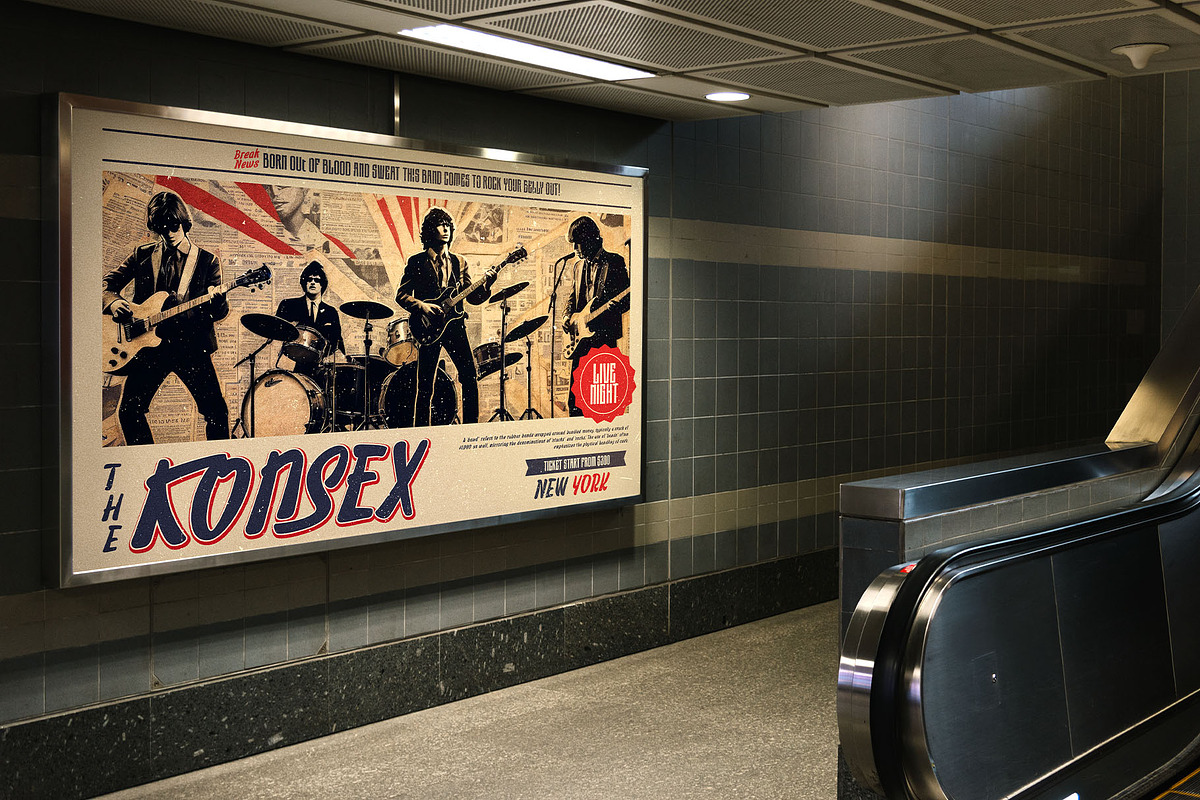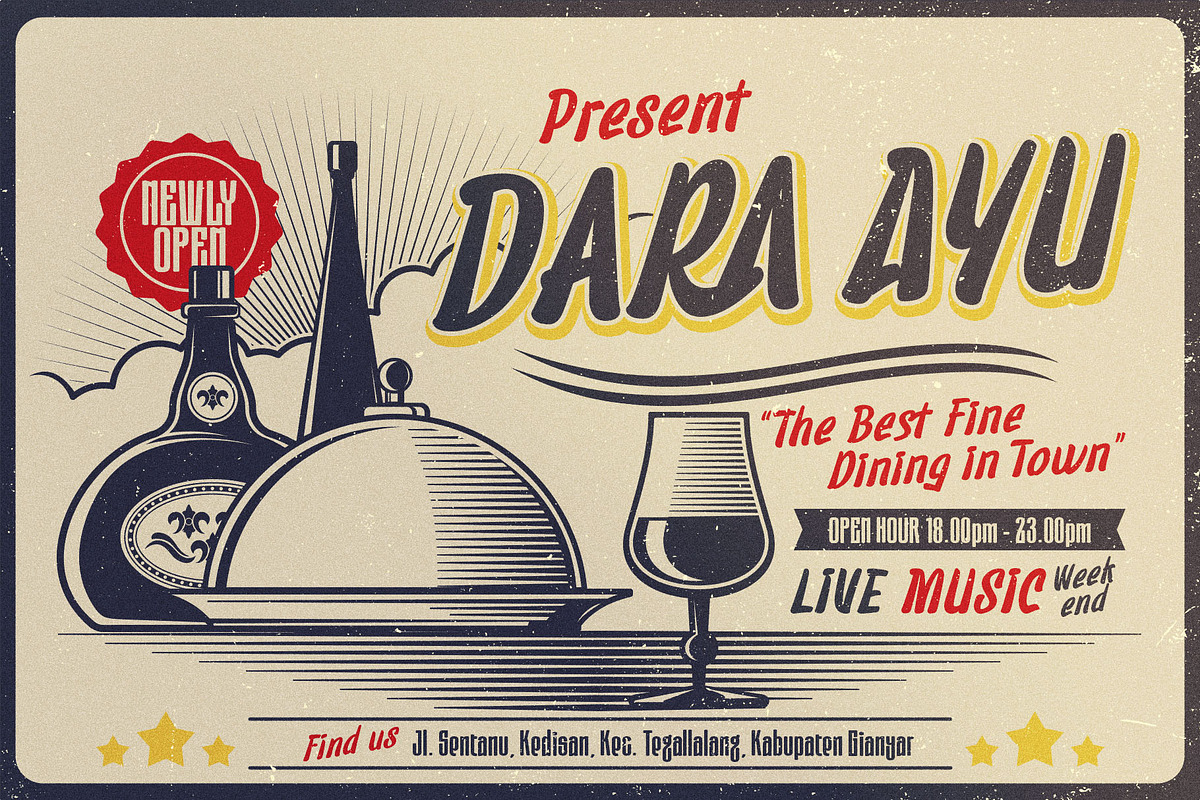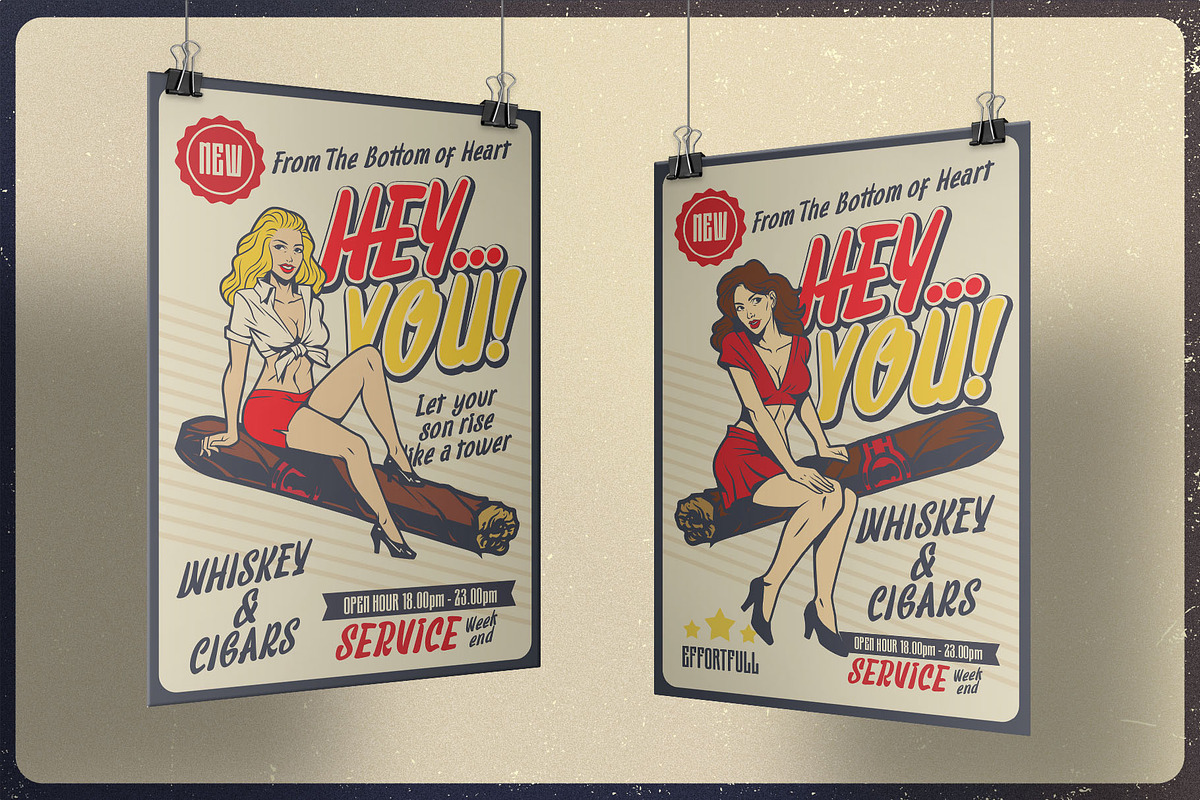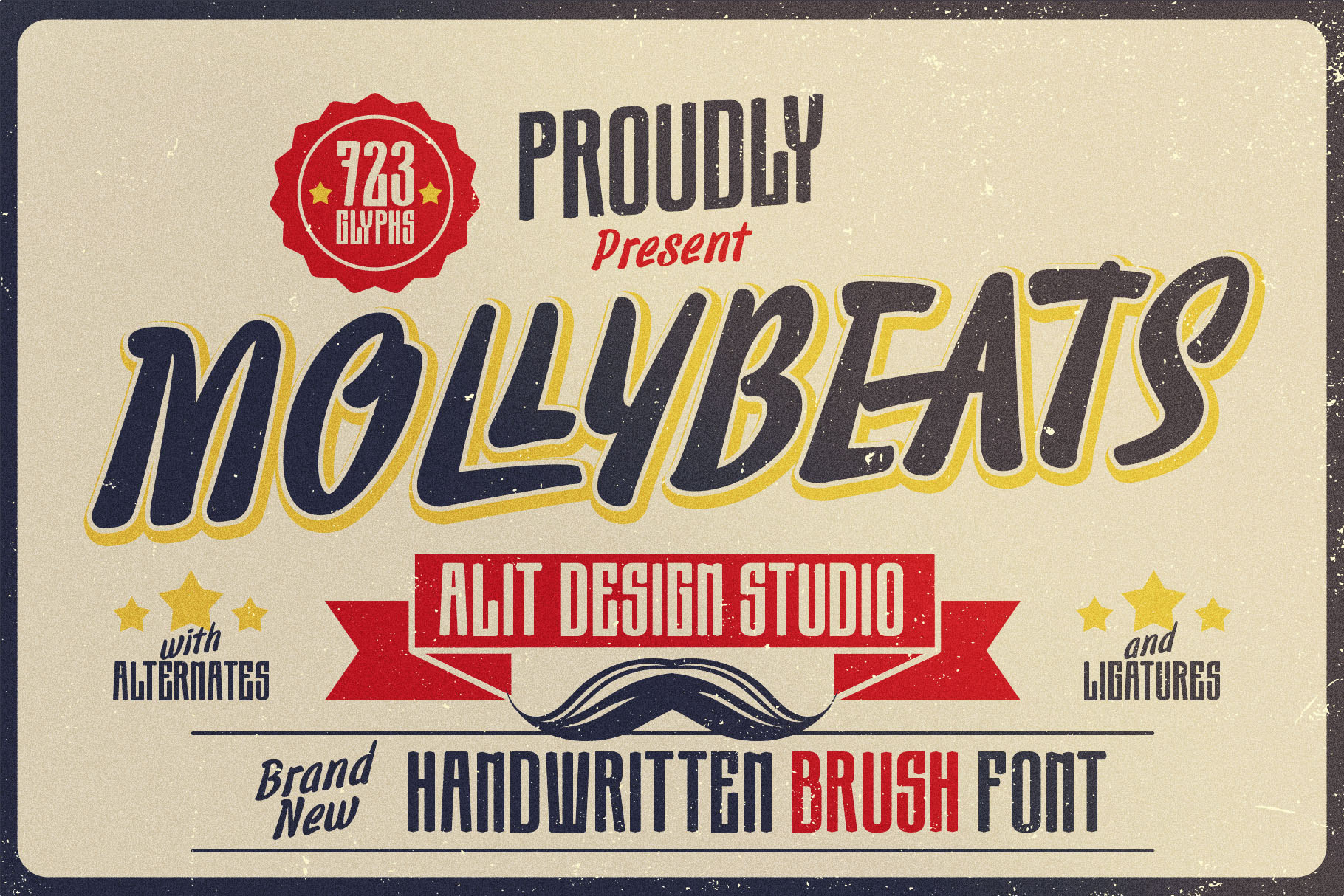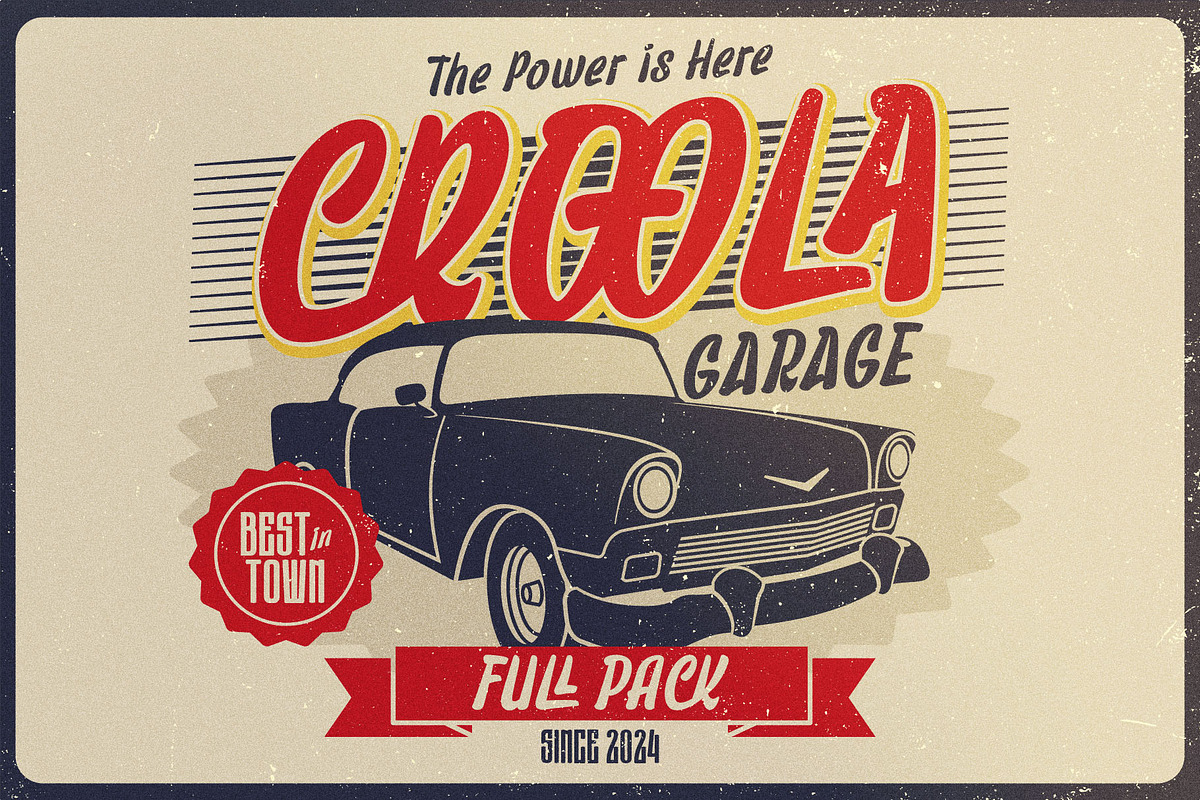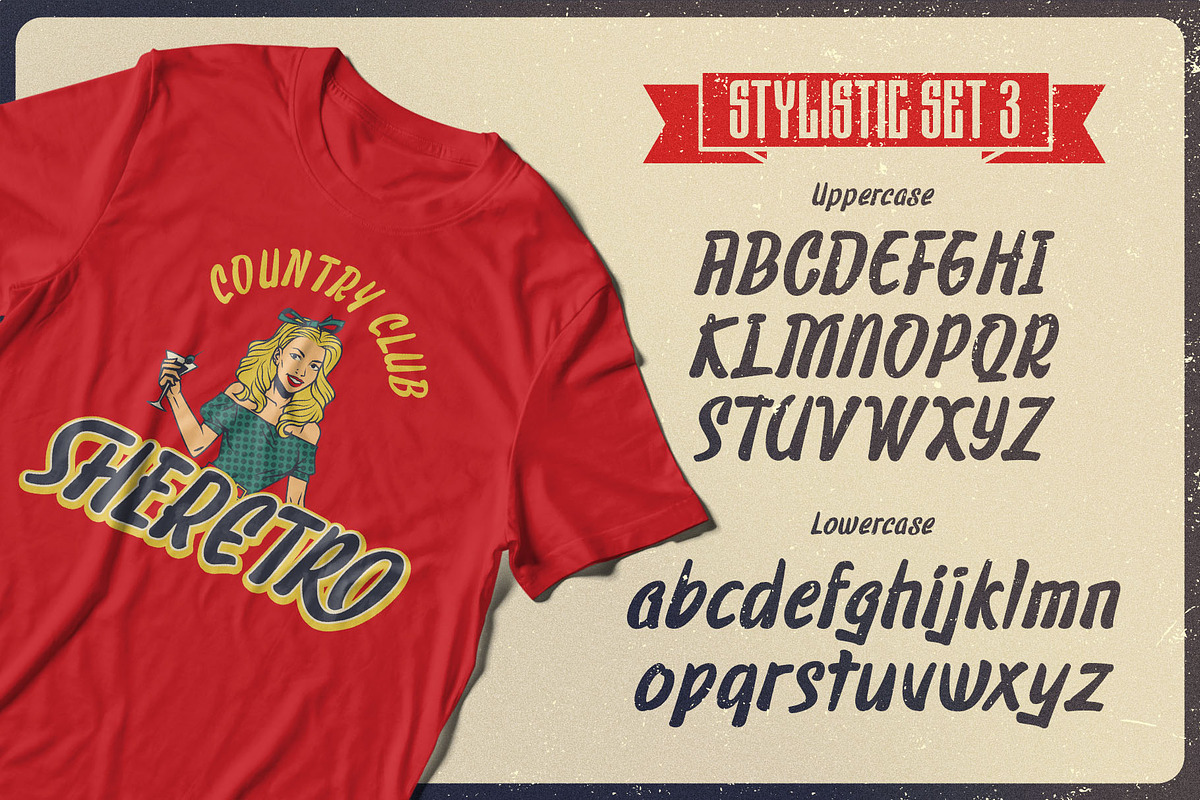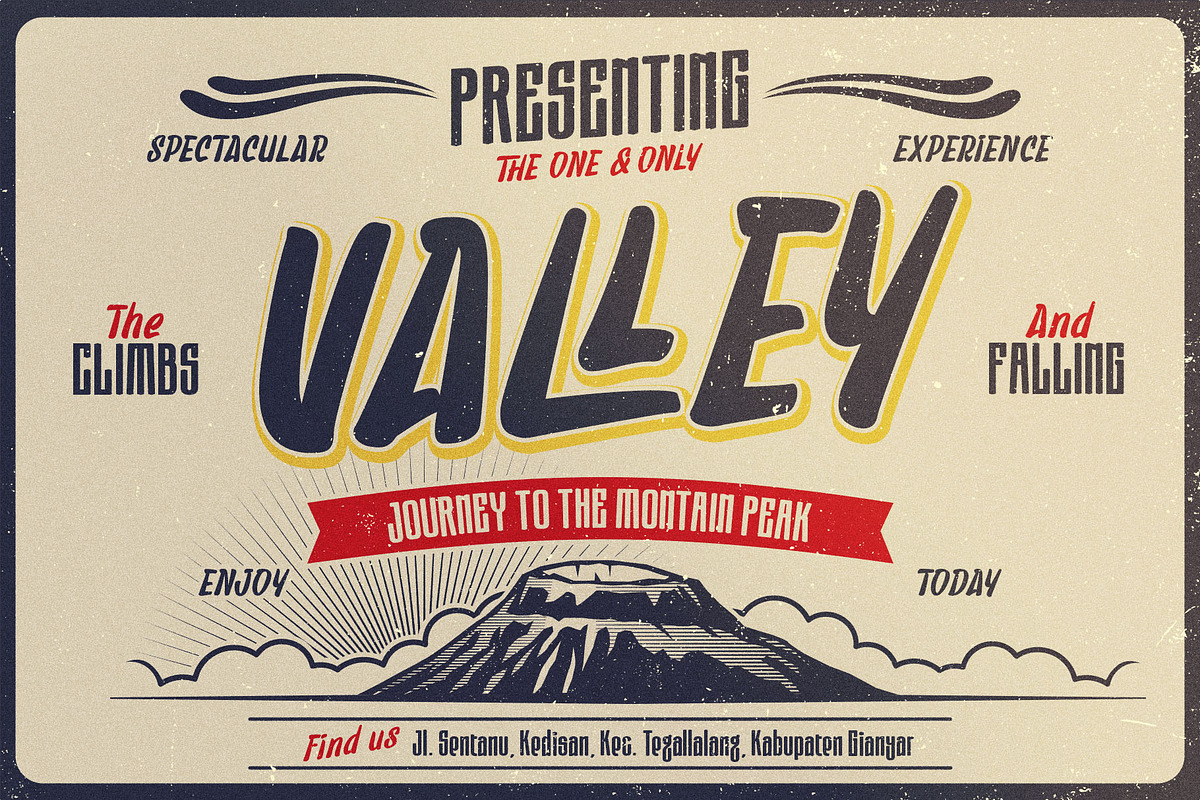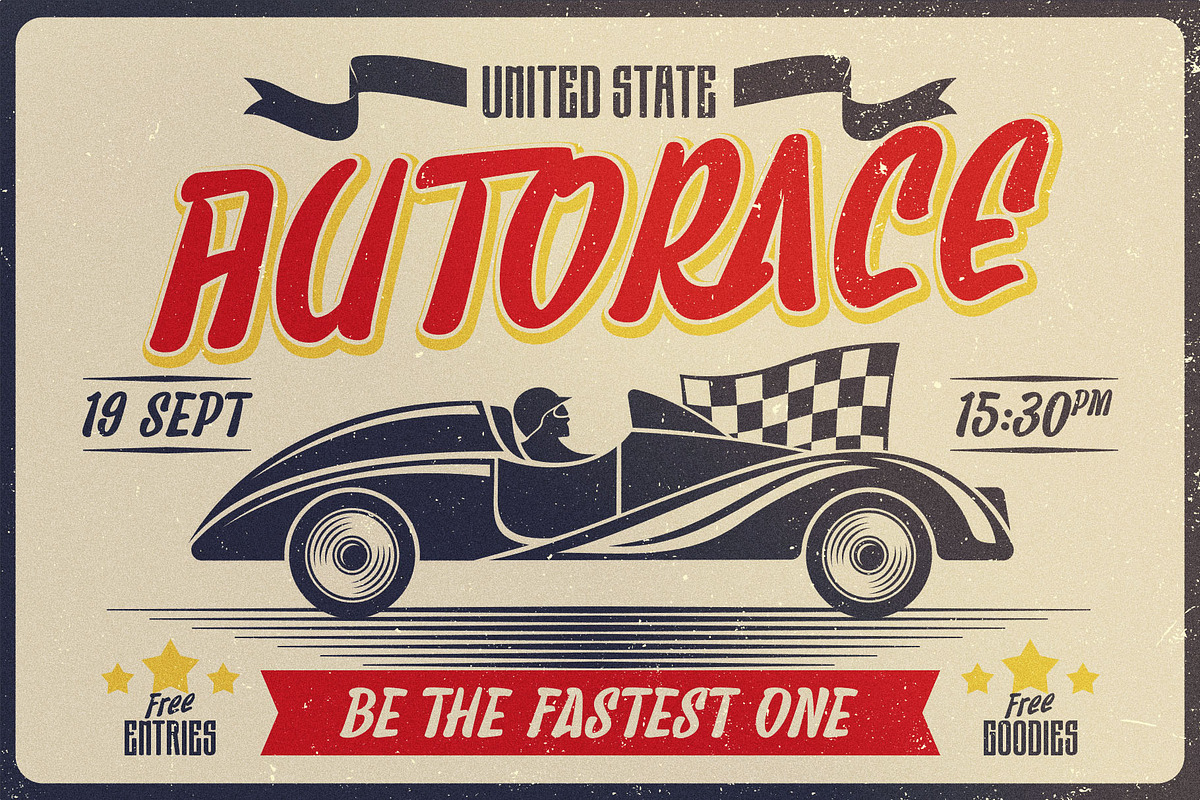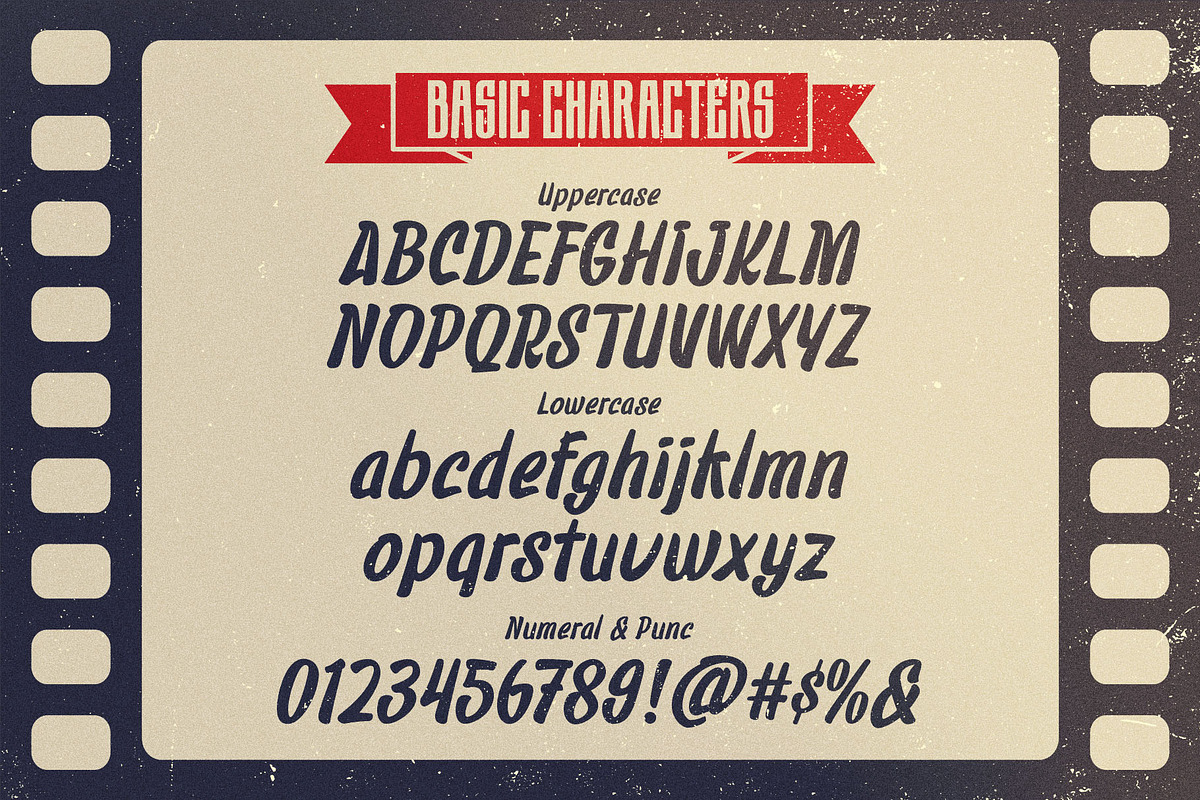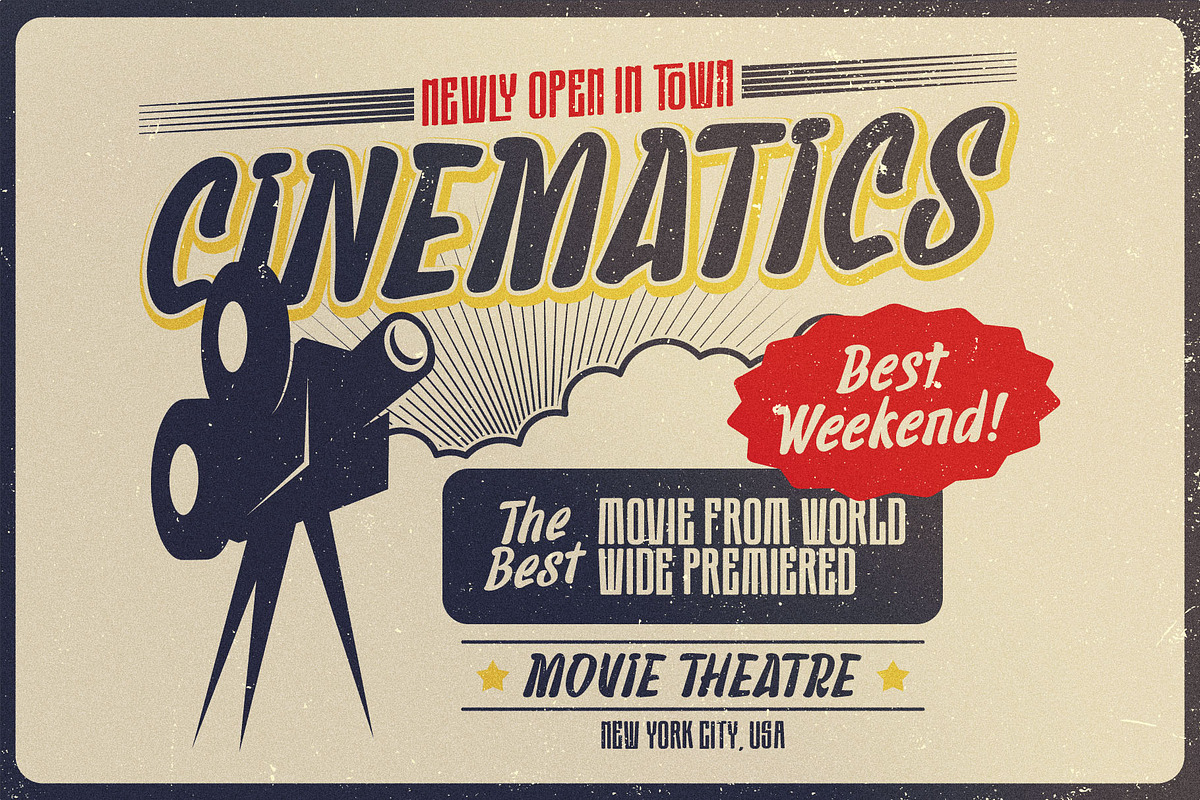
Molly Beats Handwritten Font
Molly Beats Handwritten Font is a stylish retro-inspired script font that brings vintage charm with a modern twist. Its smooth, flowing brush strokes and hand-drawn aesthetic echo the nostalgic feel of mid-century signage, but with a fresh, contemporary flair. Perfect for adding personality and flair to retro posters, logos, packaging, or any creative project, Molly Beats combines the boldness of classic sign-painting with the dynamic energy of modern design trends.
Whether you're designing for a throwback-themed event, vintage clothing line, or just want to add a touch of retro cool to your work, Molly Beats Handwritten Font will deliver with effortless style and character. Its versatility and distinctive flair make it an excellent choice for headlines, branding, and all things retro!